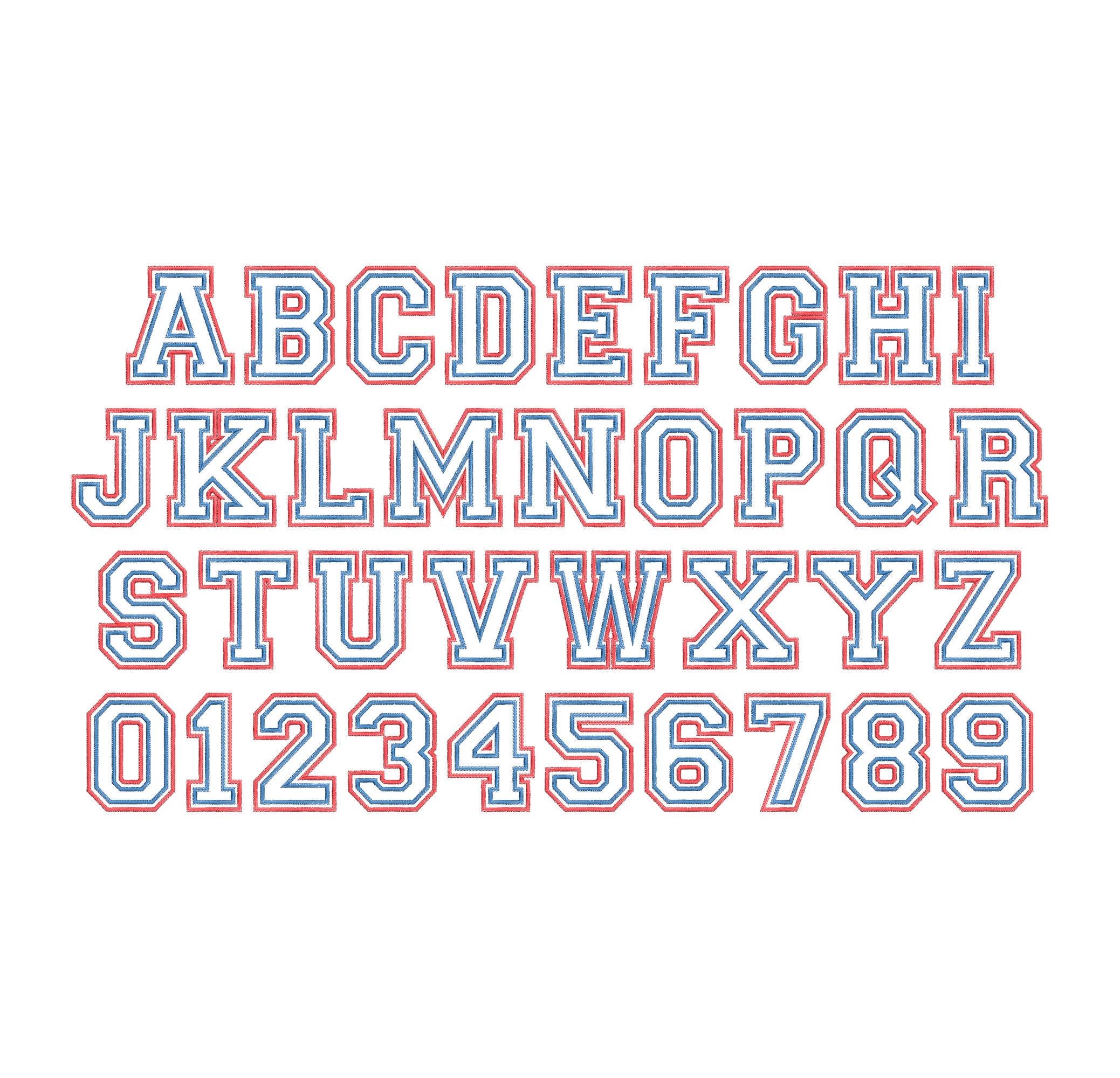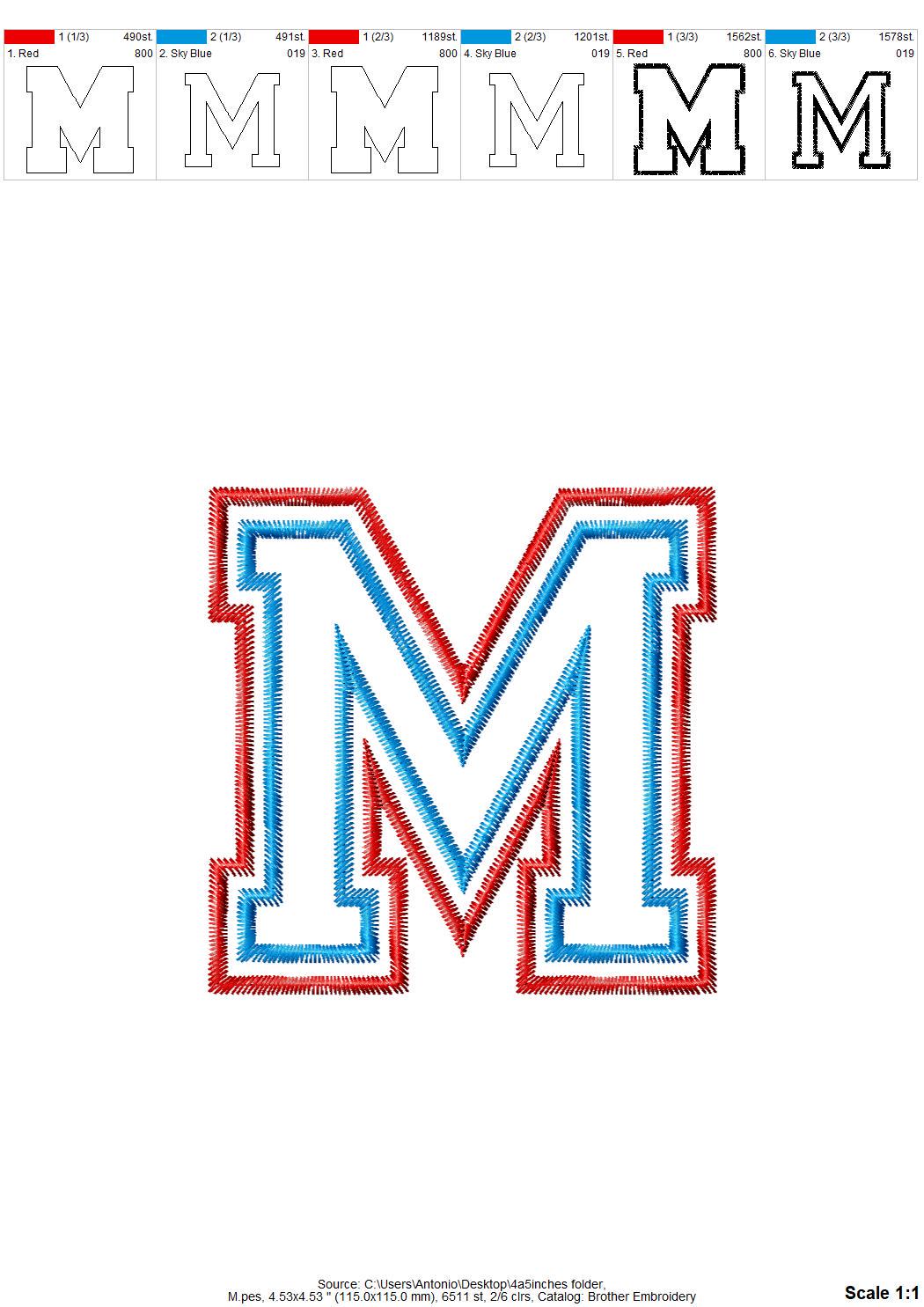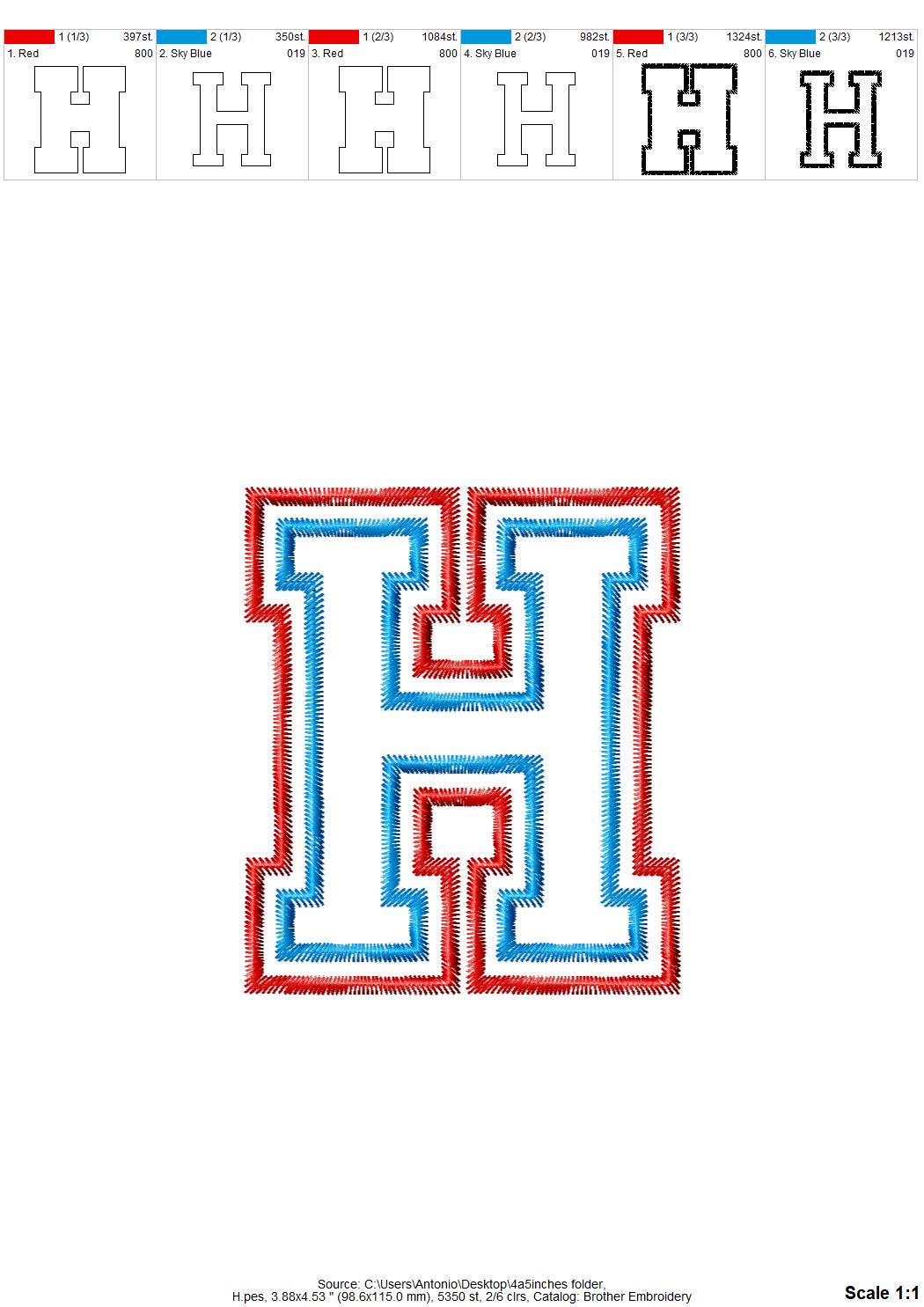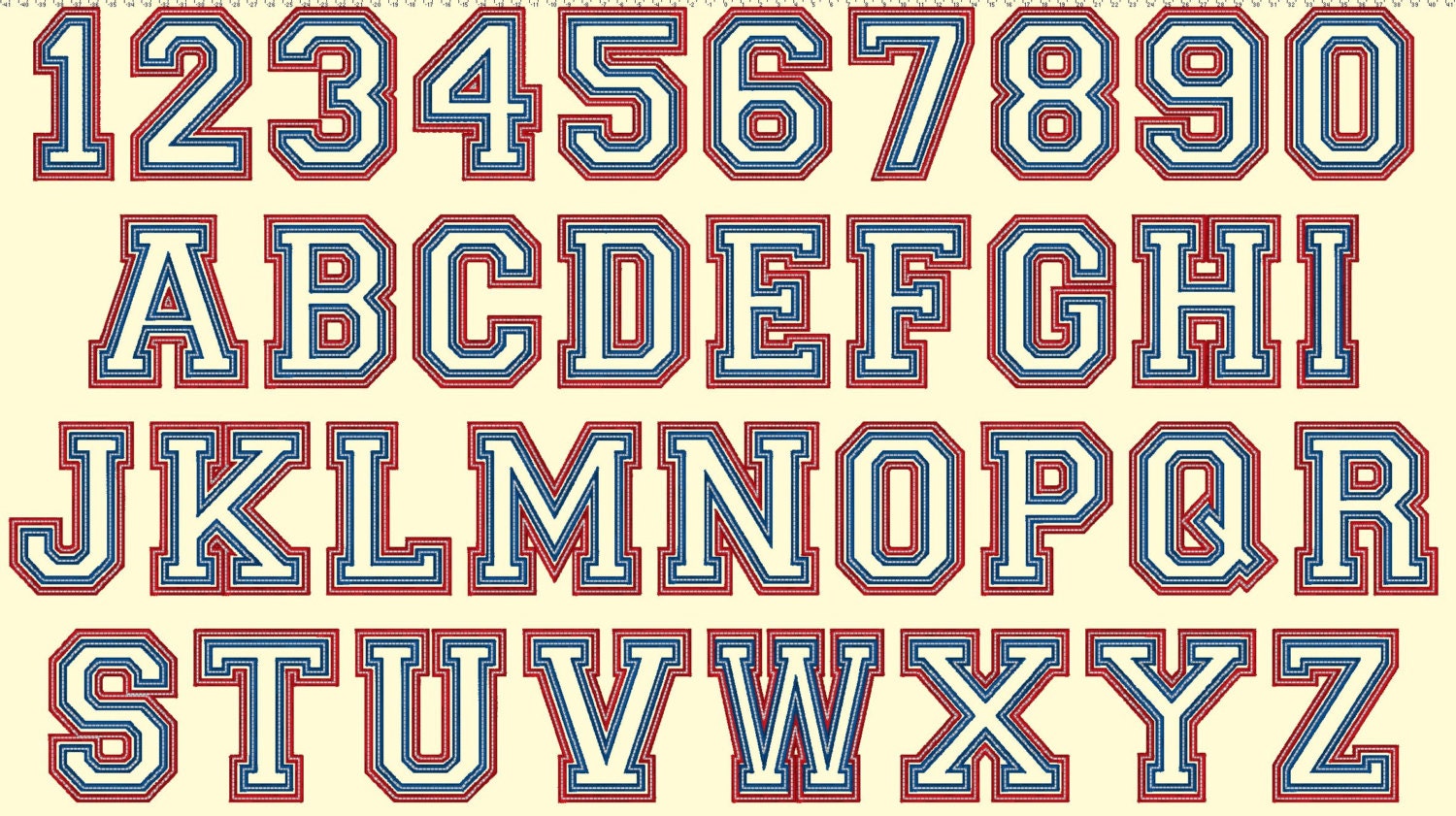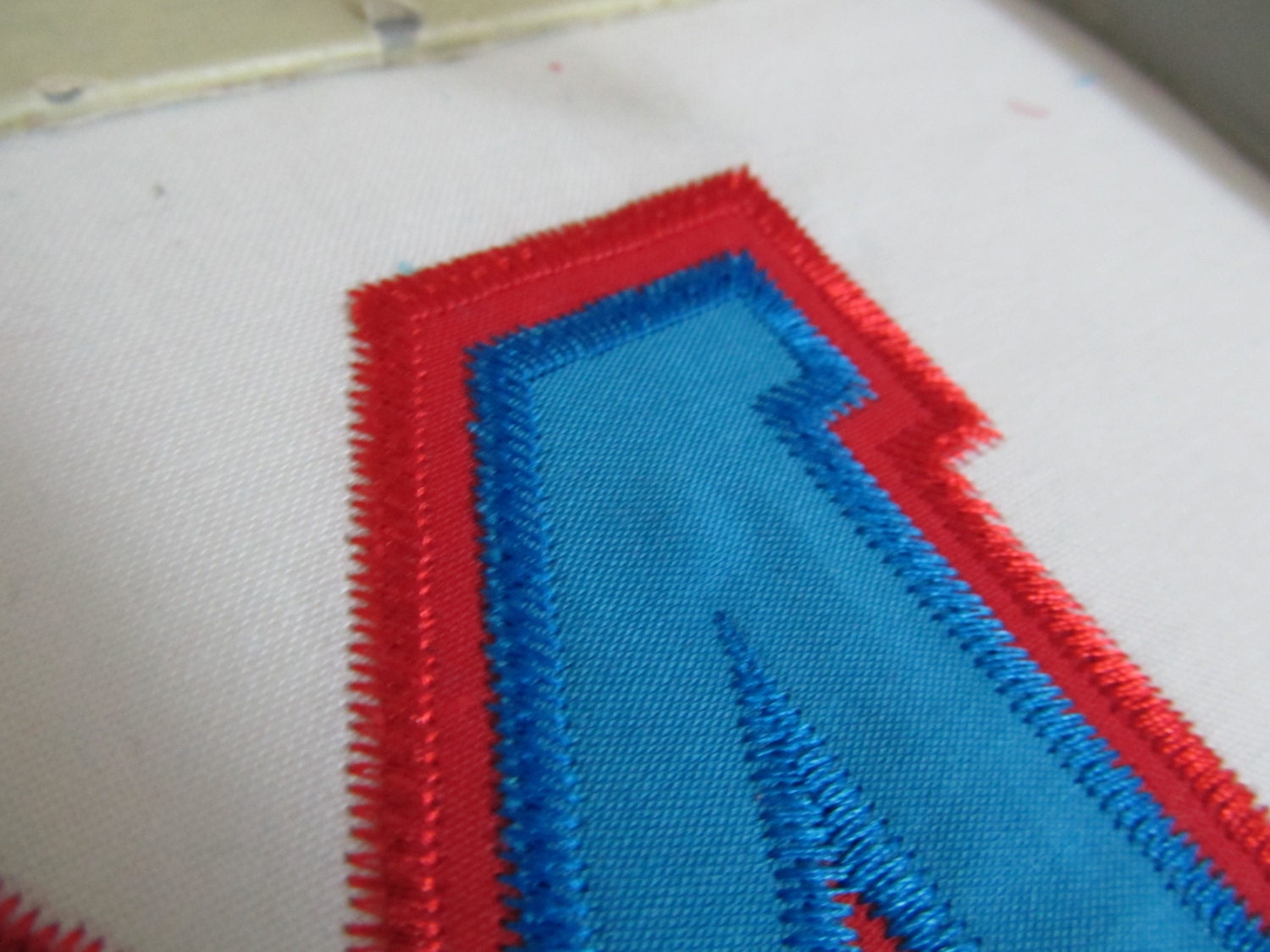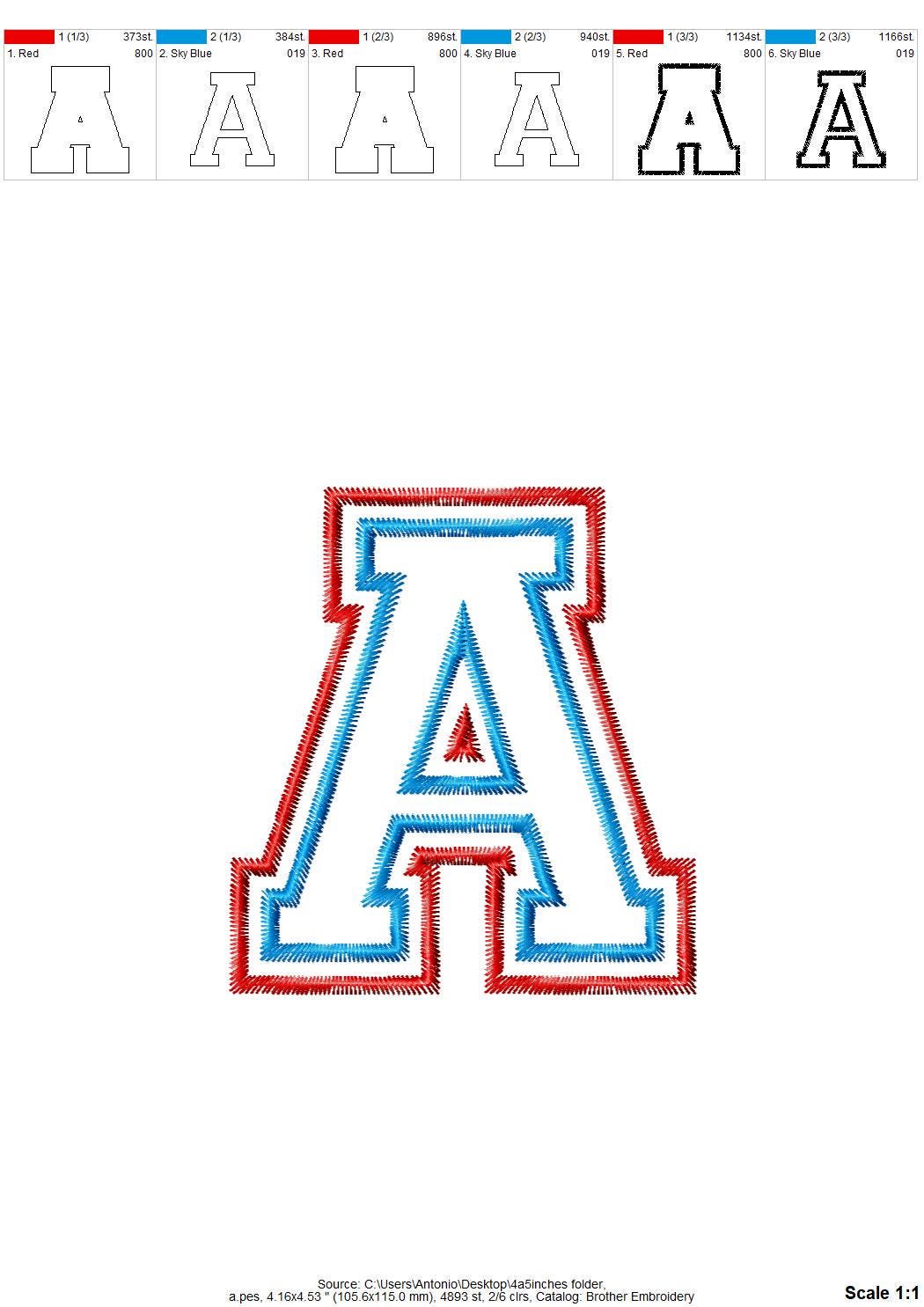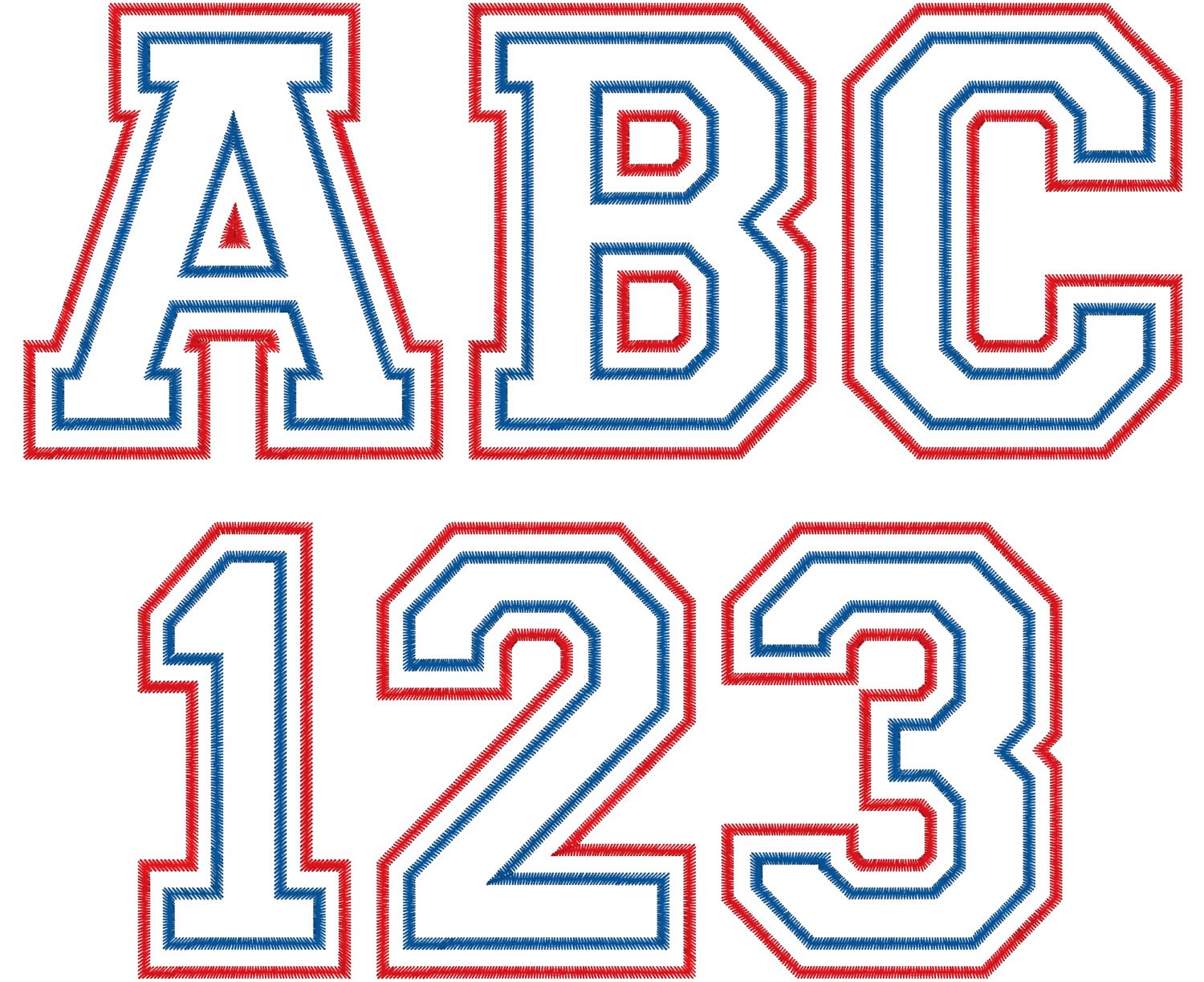
Sport two Appliqué Font Double outline applique machine embroidery alphabet ZIG ZAG zigzag stitch, BX embroidery included
Capital letters and numbers
Has wide ZIGZAG stitch outline